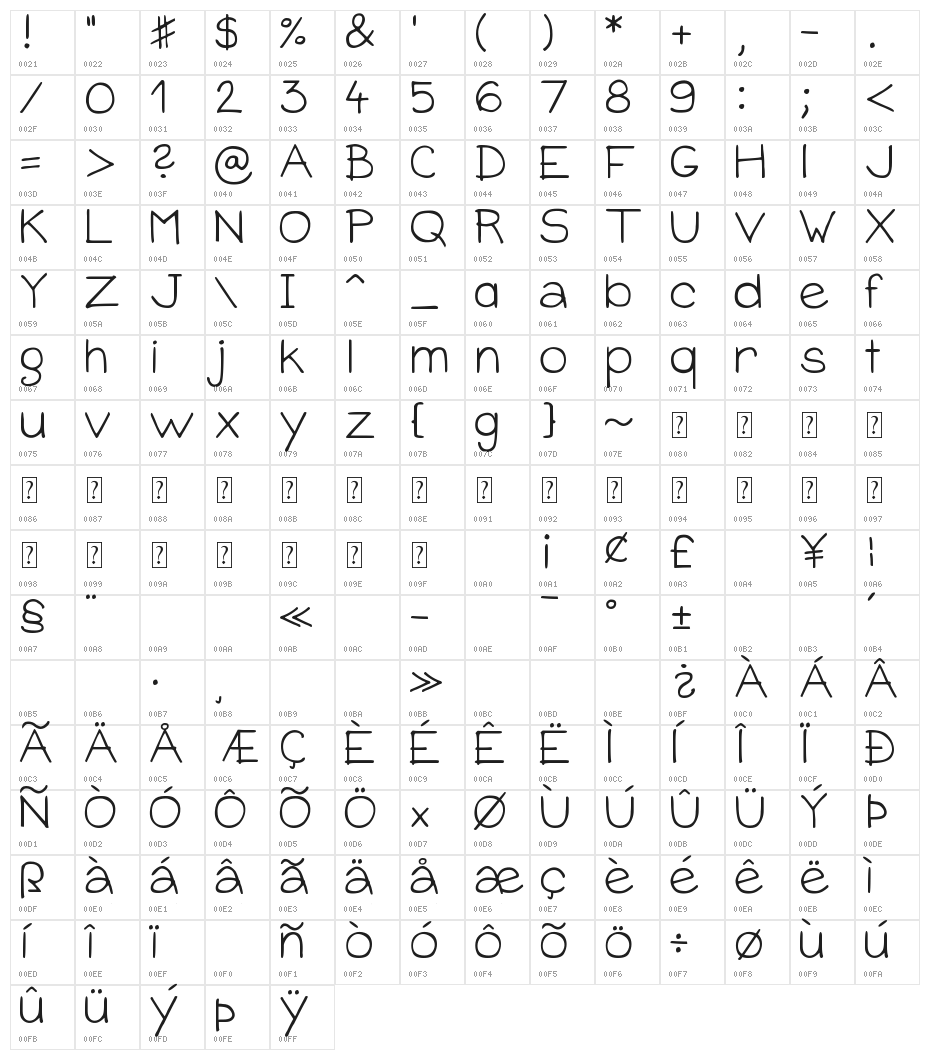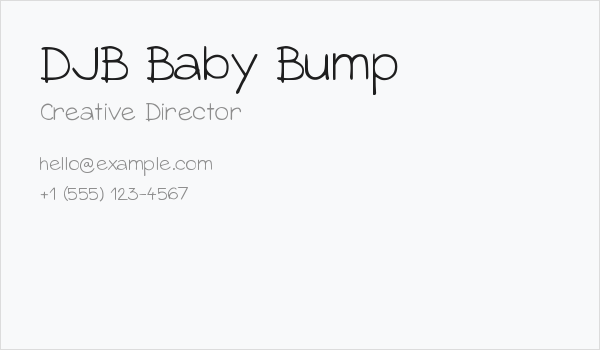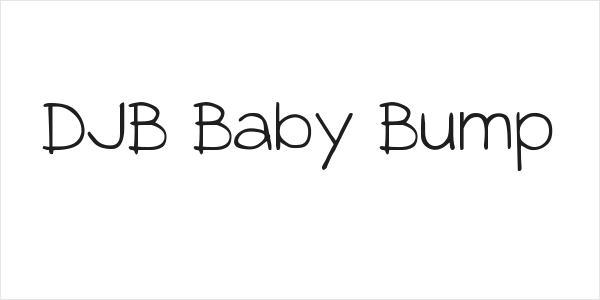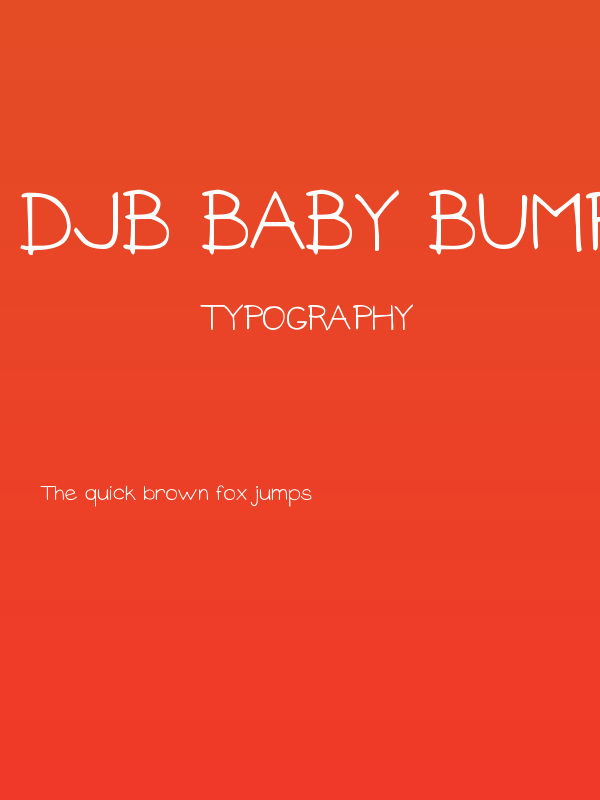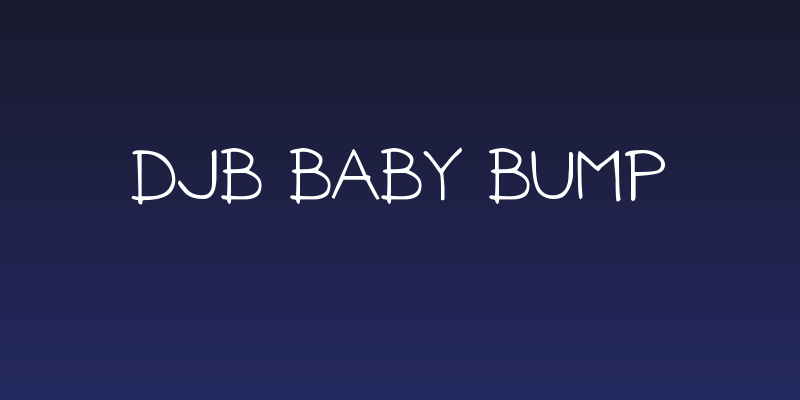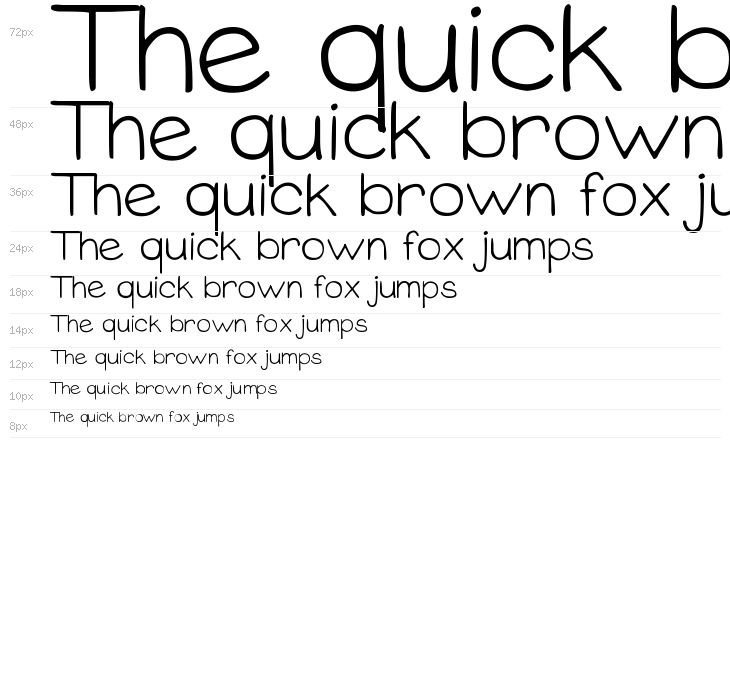
DJB Baby Bump Font
DJB Baby Bump Description
| Proposed Projects | Ideal for children's books, playful branding, greeting cards, and casual invitations. |